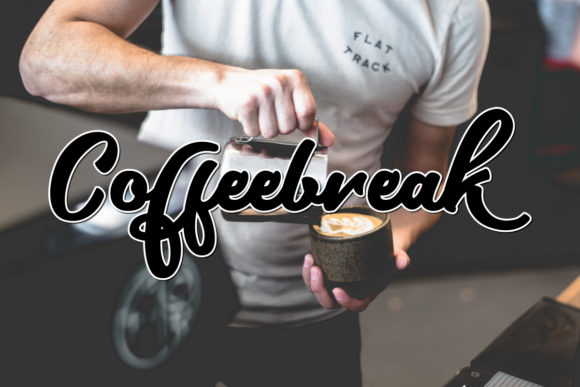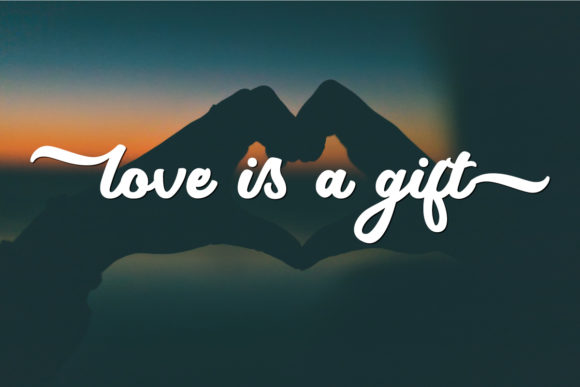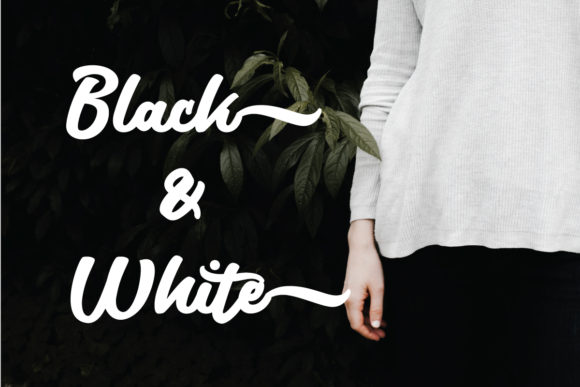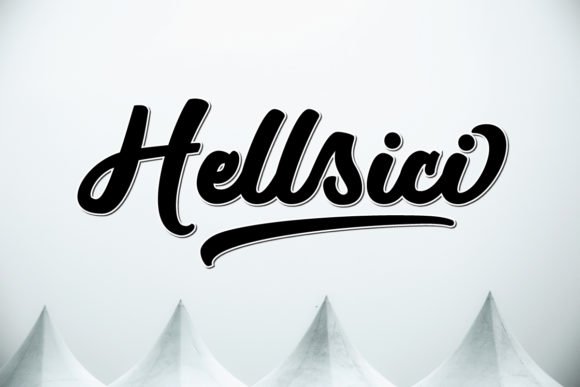
Introduction to Hellsici Font
Hellsici is a playful and elegant handwritten font with a delicate twist.
This unique typeface will turn any crafts project into an eye catcher .